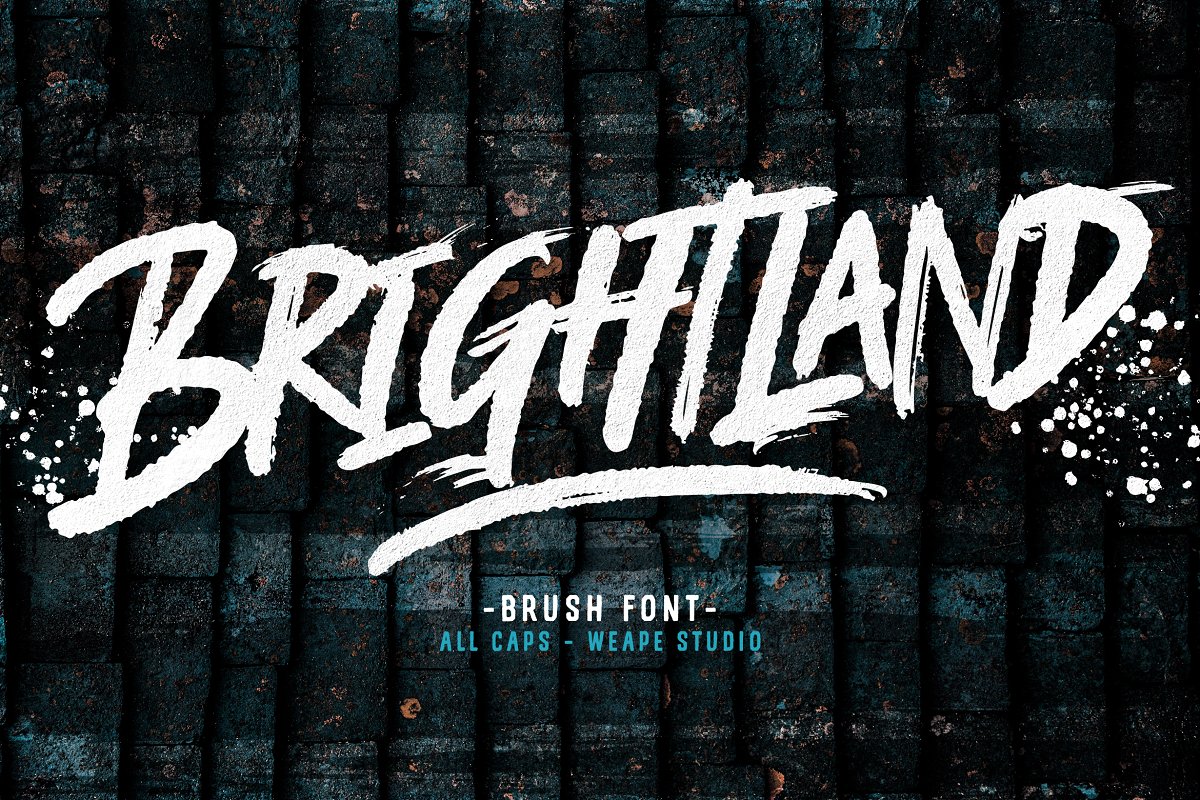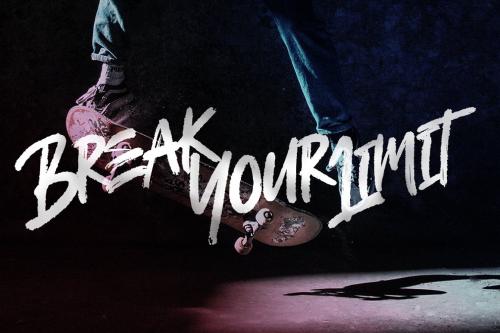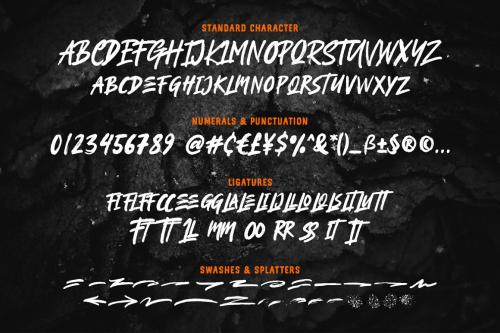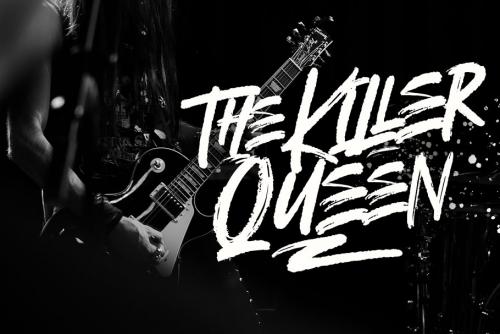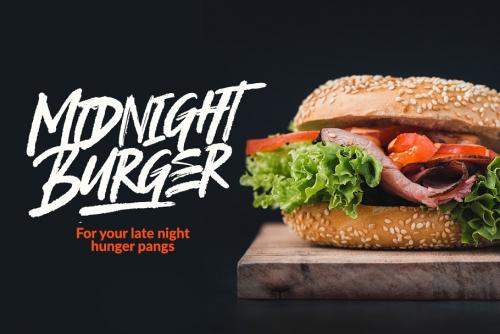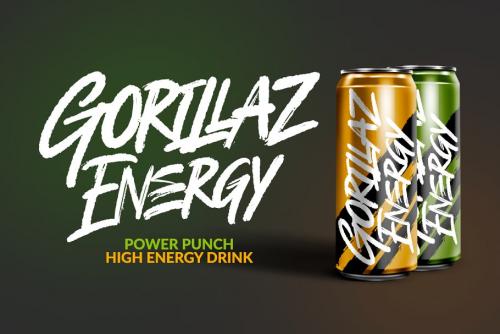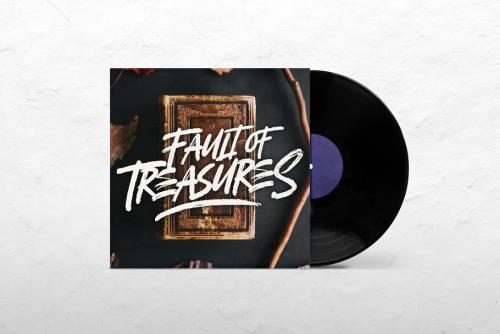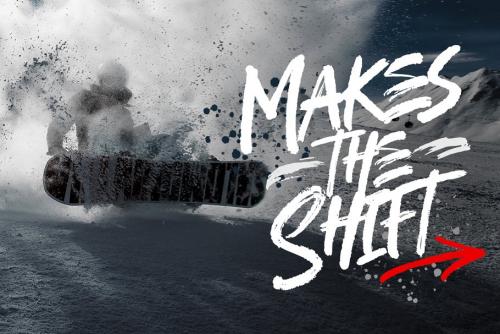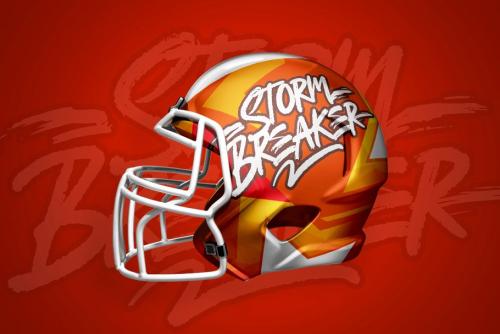
Brightland is brush font bursting with natural rough dry brush strokes, and the stroke of hand sharp and quickly.
You can use and enjoy Brightland, for anything from promotional material and handwritten quotes, to product packaging, merchandise and branding projects.